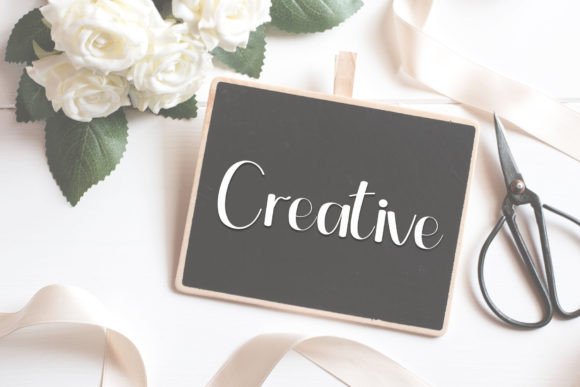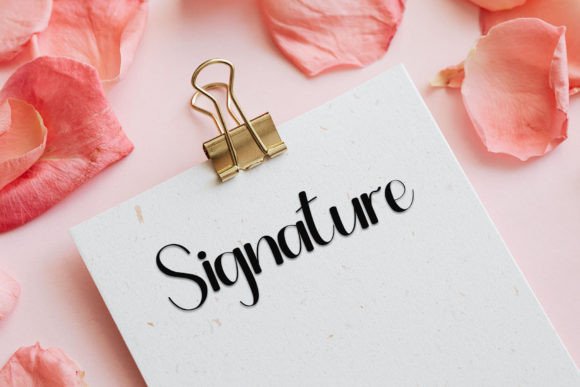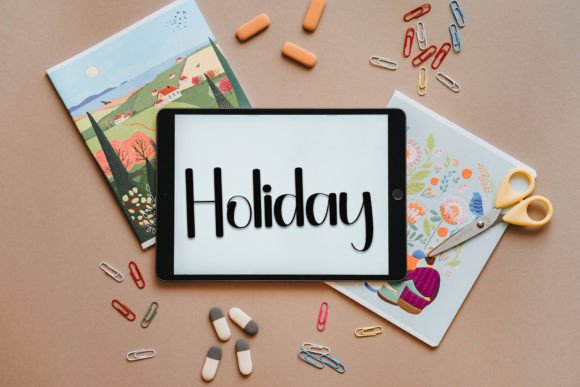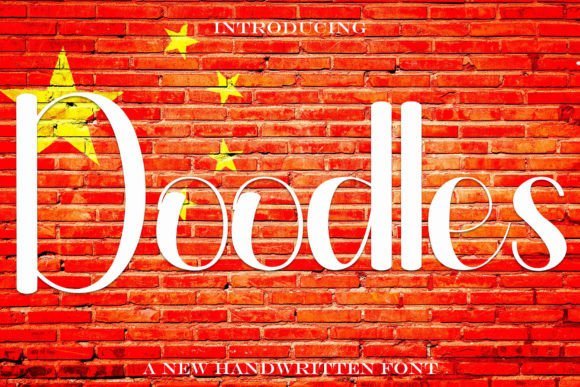
Introduction to Doodles Font
Doodles is a sweet and cursive handwritten font.
This gentle font will look gorgeous on a variety of design ideas It will add a joyful and romantic touch to each of your projects.
Doodles Font offers exceptional quality and versatility, making it a valuable addition to your design toolkit. Whether you’re creating for personal projects or commercial use, Doodles Font delivers professional results.